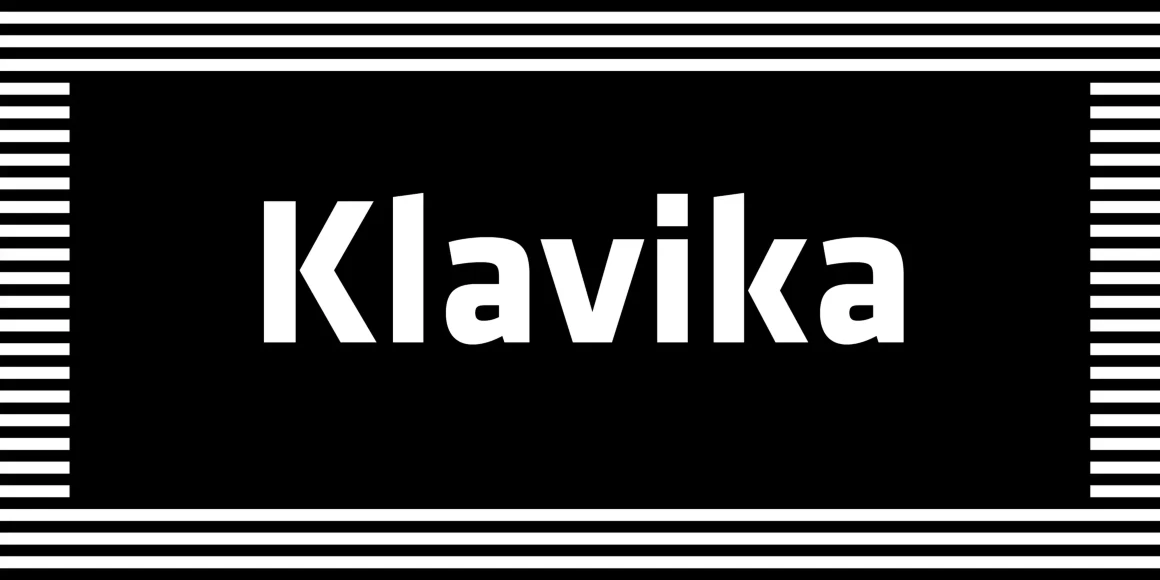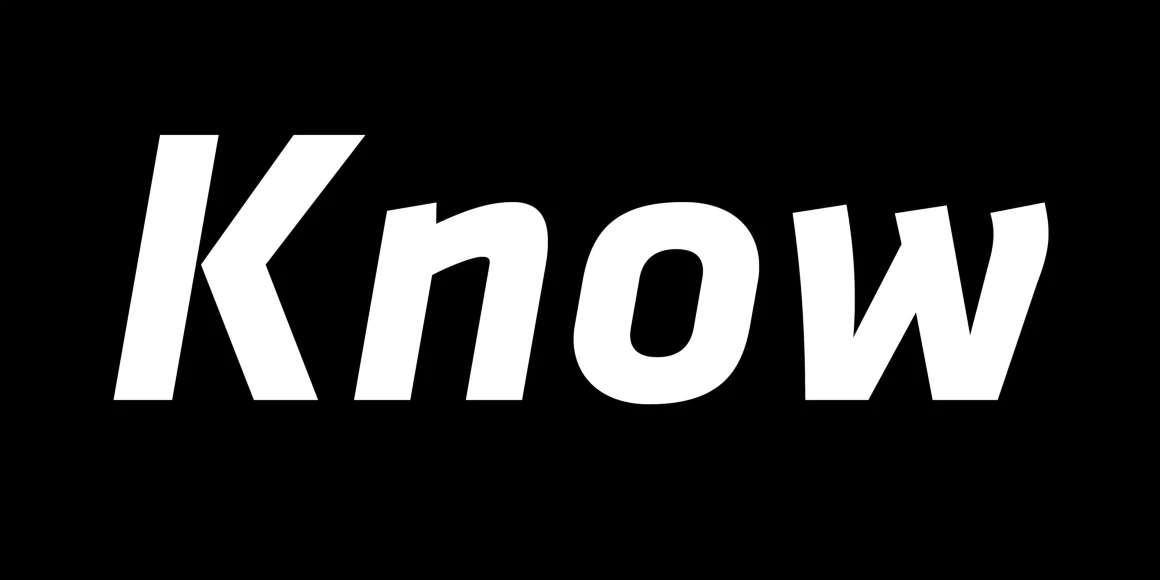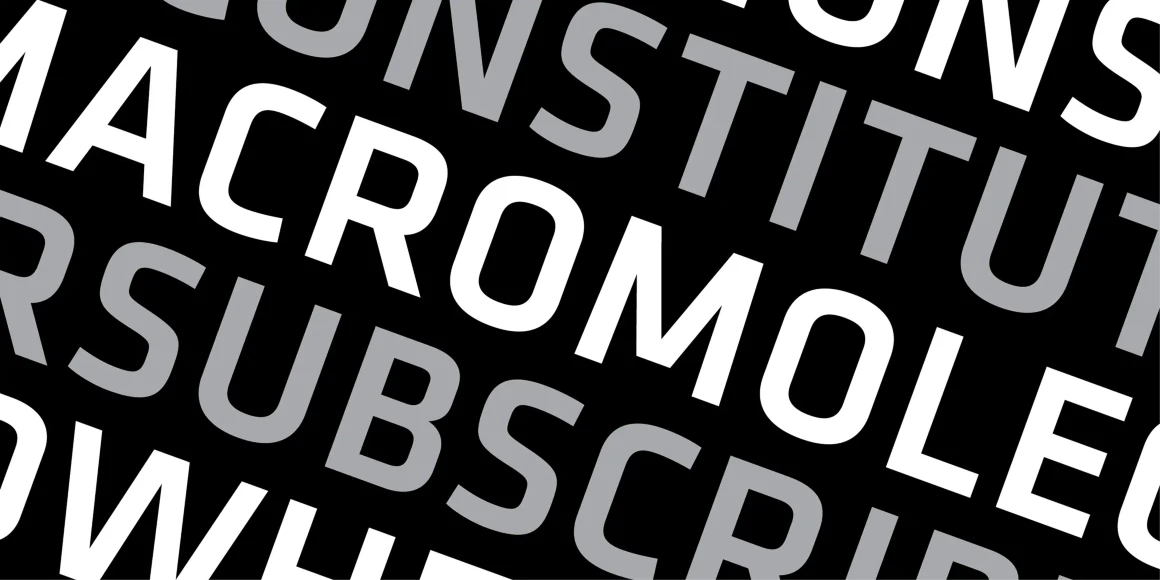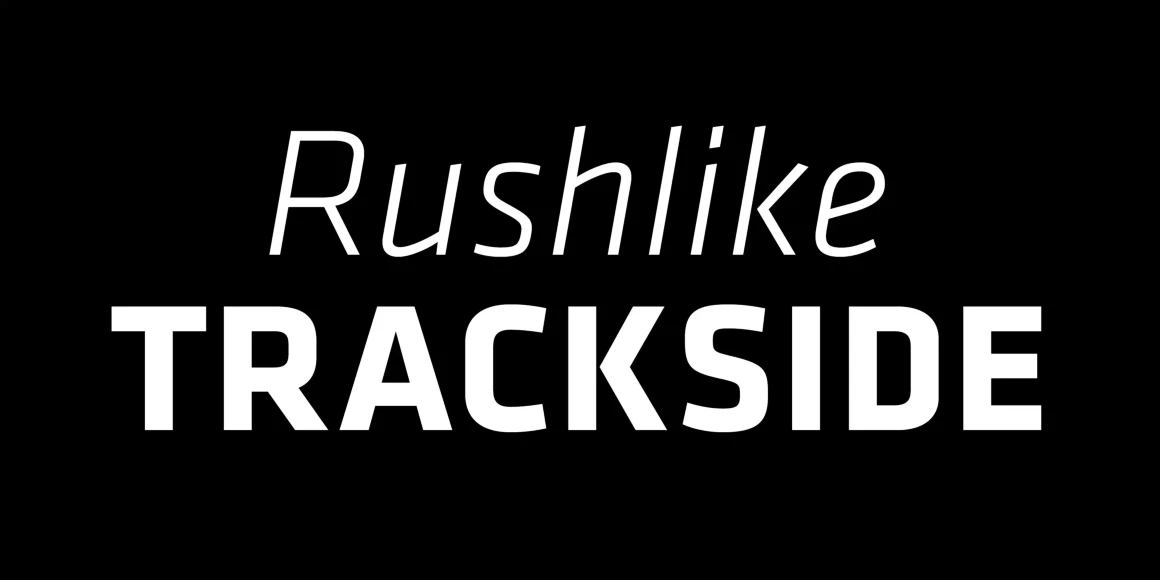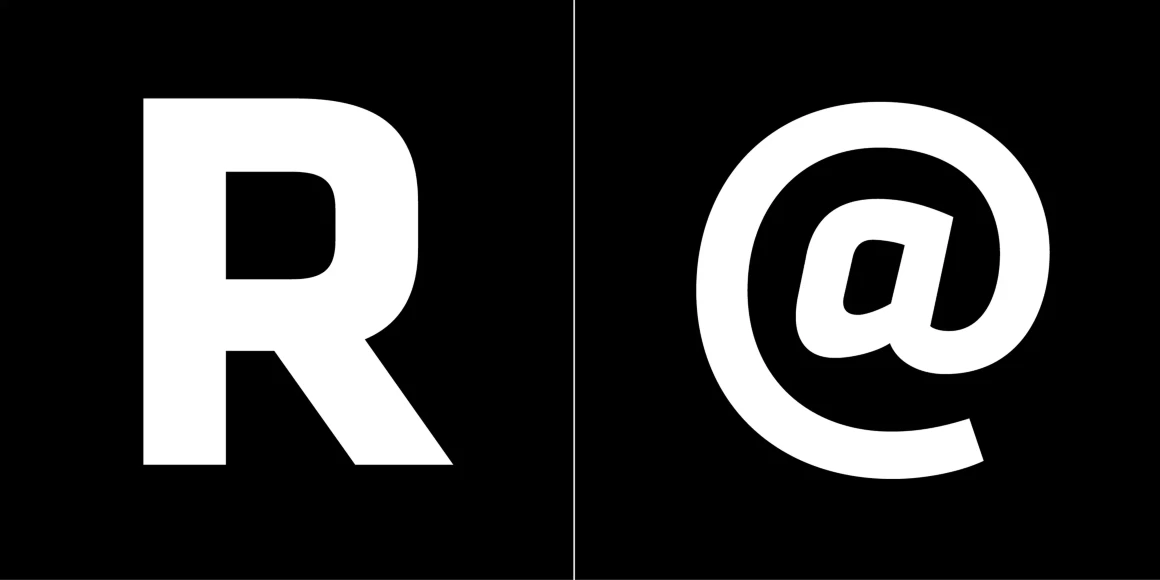
Klavika
From Process Type Foundry
Klavika, available in two widths, is a full-featured, workhorse sans serif for 21st-century needs. Unadorned, modern, and infinitely flexible, it follows a decidedly hybrid typographic path — a cross of humanist and geometric influences with allegiances to neither. Crisp and open shapes keep the font legible in small sizes while the straight-sided characters solidly anchor large settings. The near vertical terminations, straight sides, dynamic italic, and range of weights are right at home in the condensed widths, without sacrificing the feel and functionality of Klavika.
Klavika Display, available in two widths, extends the family dramatically with fonts made for large sizes and a huge impact. Bookended by two extremes — Thin and Ultra Black — these styles were drawn independently of one another and are exaggerated caricatures of the original series. From extra stuffed to skeletal thin, they work well alone as boastful display fonts. Use them as big as possible.
Typographic features vary by style and include stylistic alternates, tabular figures, arrows, small caps, and old style figures. Klavika and Klavika Condensed each have four weights, plus italics. Klavika Display and Klavika Display Condensed each have four weights.
Designed by Eric Olson